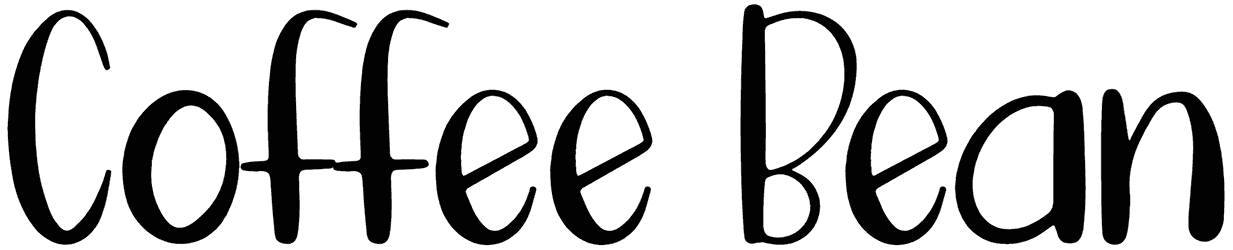
Coffee Bean Font
Creating content with personality and childish sense requires going through lots of handwritten and doodle fonts. But let’s start here with Coffee Bean, an awesome font with a cute design that makes it adorable. Use this coffee font for packaging, postcards, toy logos, cartoons, etc., and that’s not all. You also get a complete collection of characters. Don’t forget to check out Resource Boy’s newest additions.